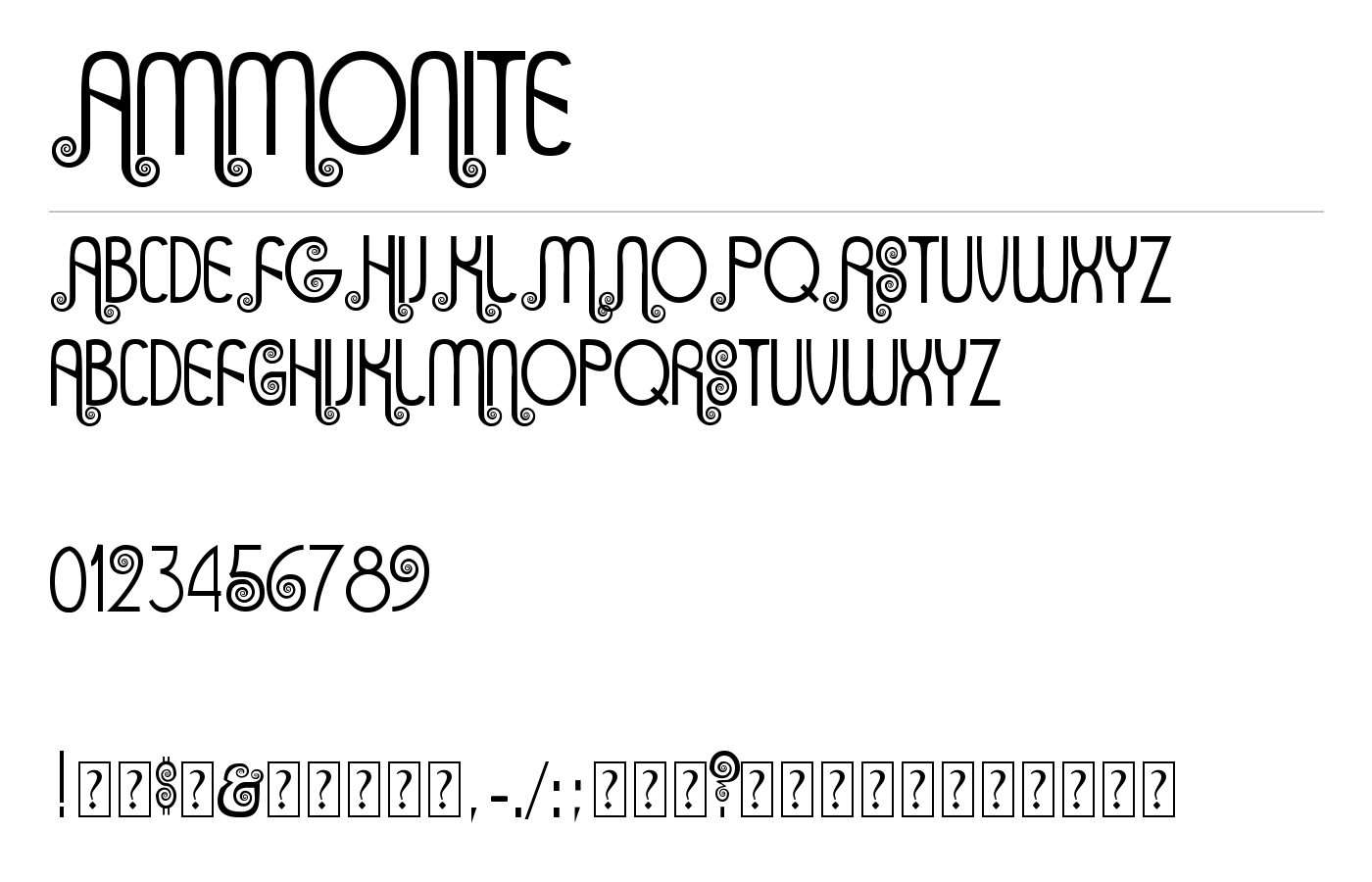
Anning Font is a narrow, decorative sans serif with a whimsical, playful character thanks to its signature spiral embellishments on certain letters and numerals. Its tall, slender letterforms combined with minimal stroke contrast give it a distinctive, artistic vibe that’s perfect for creative branding, headlines, or packaging where a unique, eye-catching style is desired. This font works well for projects seeking a fun yet sophisticated flair, especially in fashion or boutique contexts.
Anning Font